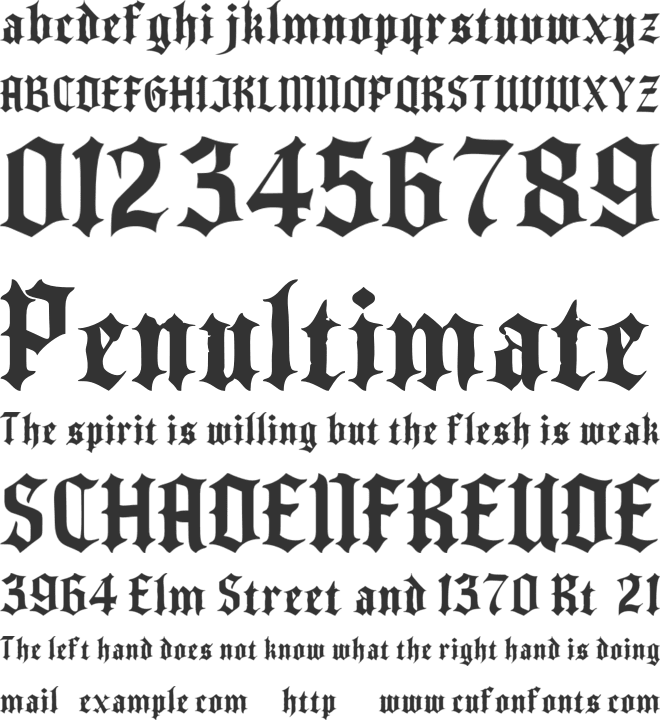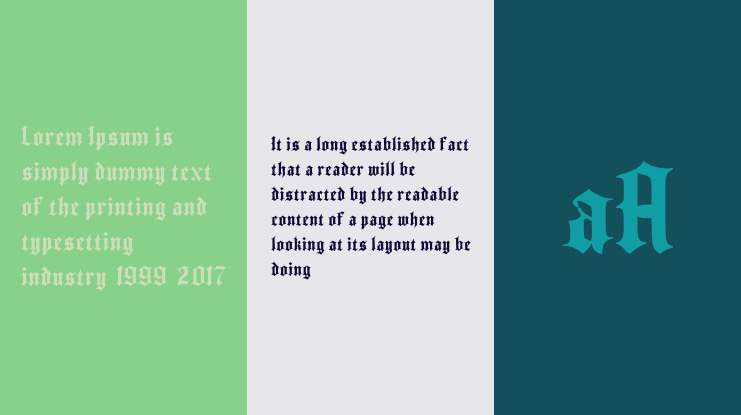
Ebon Sigil Font
This is the demo version of Ebon Sigil, a dark gothic blackletter typeface inspired by medieval manuscripts and occult symbolism. This font is ONLY for PERSONAL USE. NO COMMERCIAL USE ALLOWED! — not allowed for commercial projects, branding, or any promotional materials.